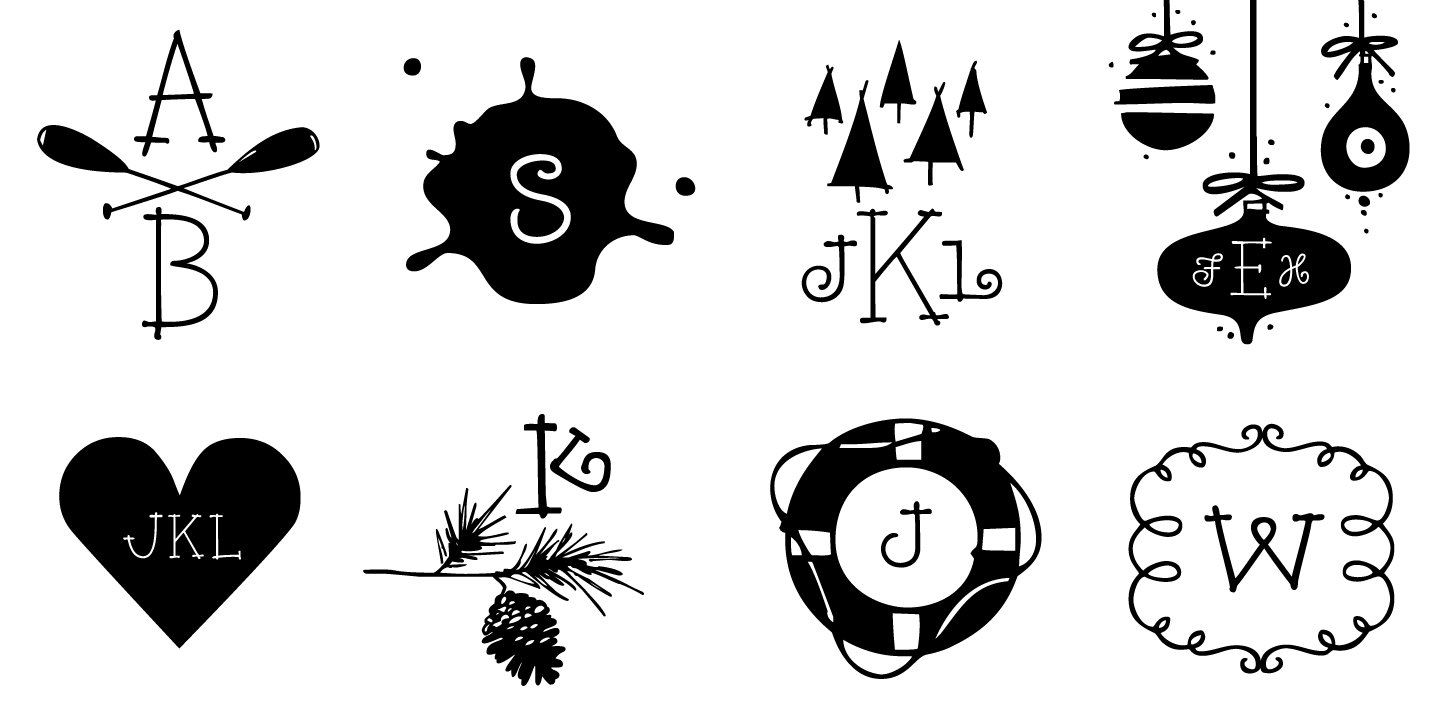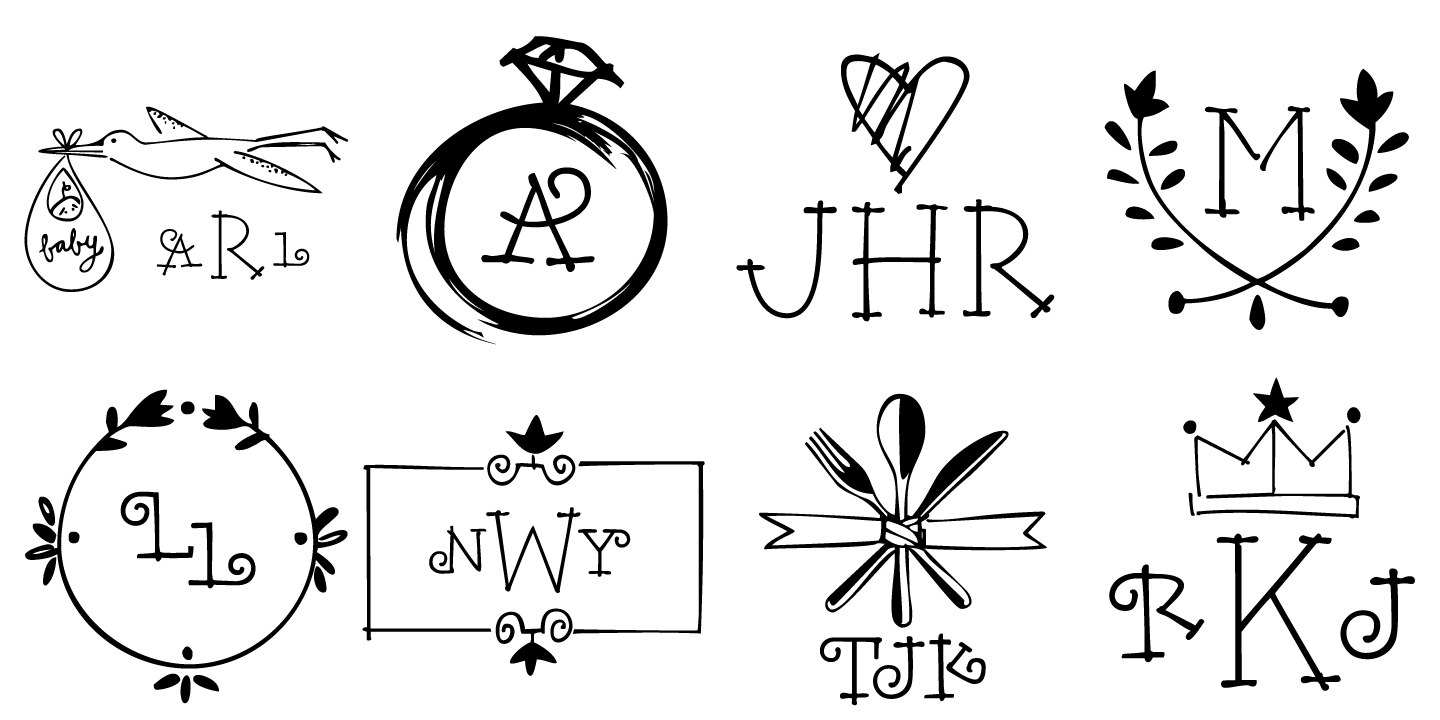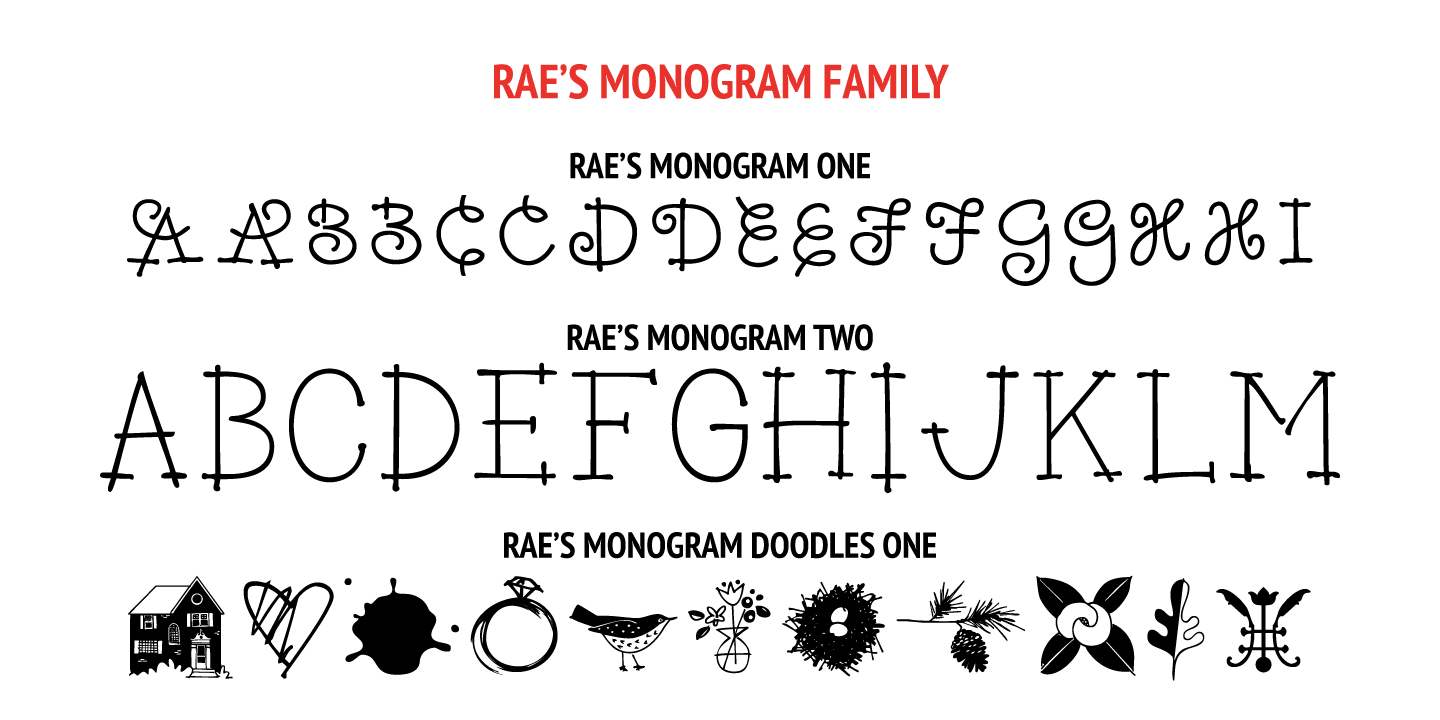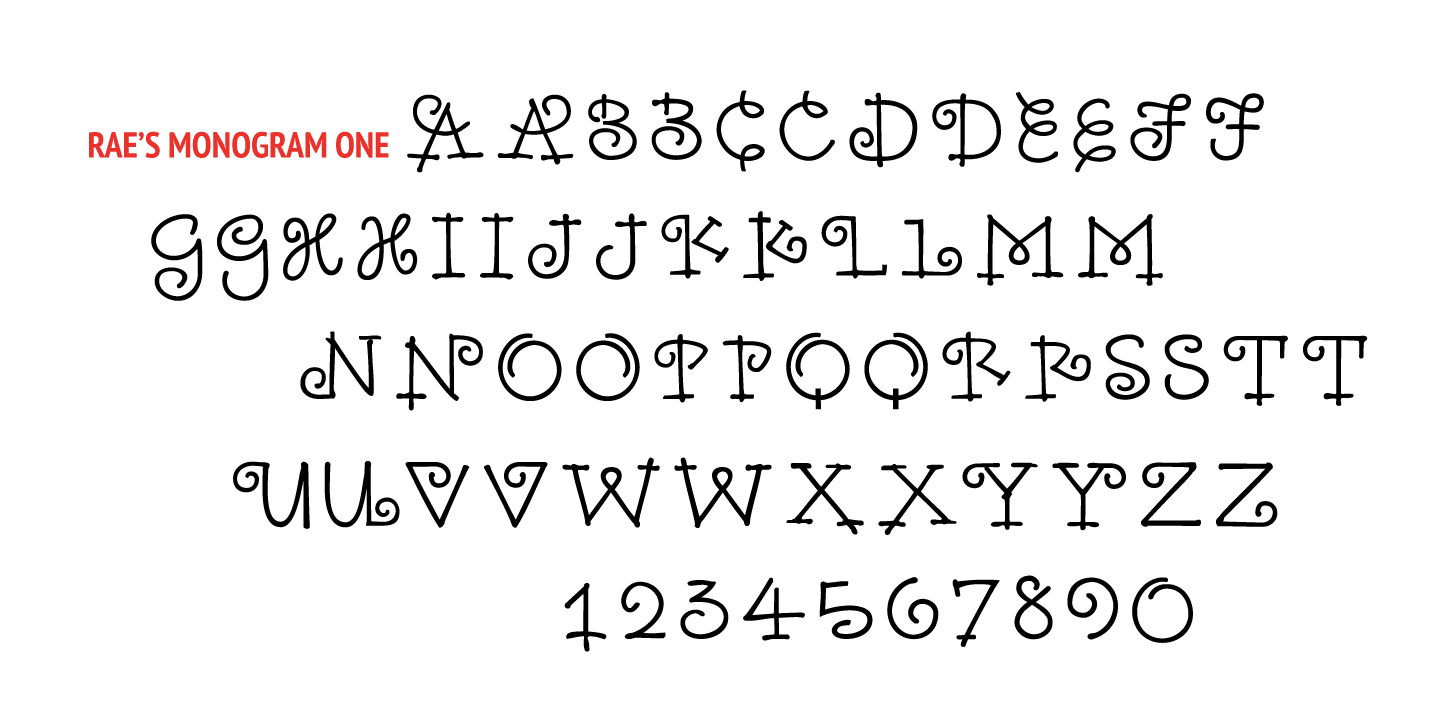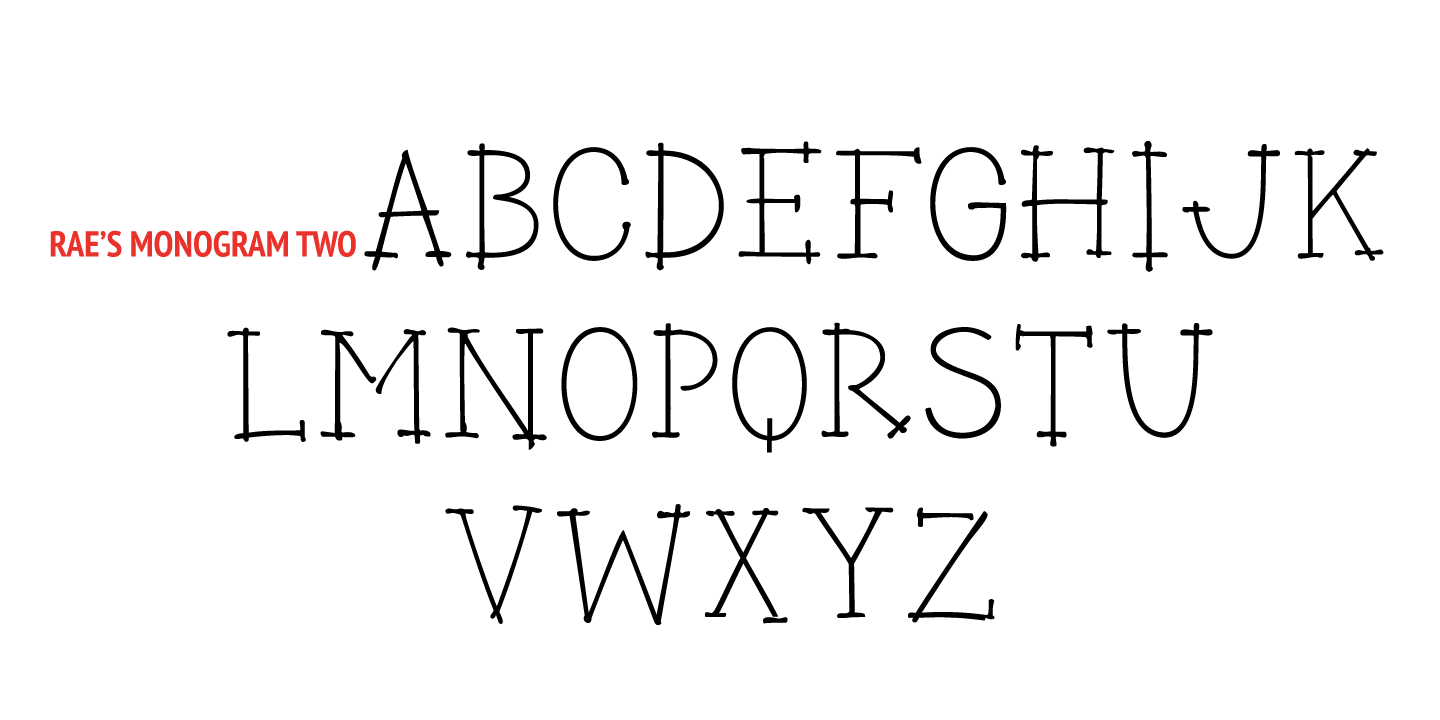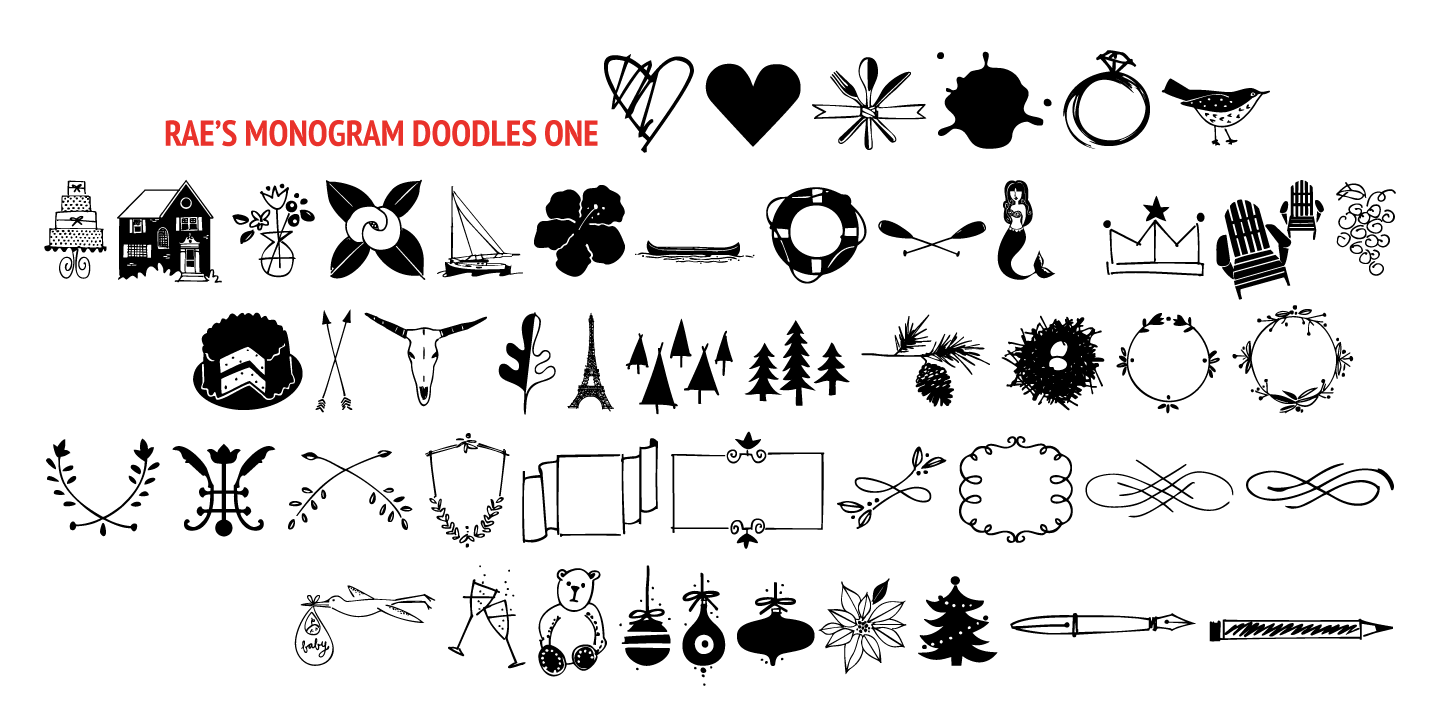
Rae's Monogram Complete Family
Rae's Monogram Family is a contemporary take on monograms. Rae's Monogram One letters are best used as the right and left letters. You can add Rae's Monogram Two for the middle letter.
Rae's Monogram Doodles One are 50 small illustrations to use with the monogram. If you don't see the one you want take a look at over 1,000 others in Outside the Line's Doodle font library.
Of course just because it was planned this way doesn't mean you have use them this way. Use your imagination! You can use just one font, or two or all three.